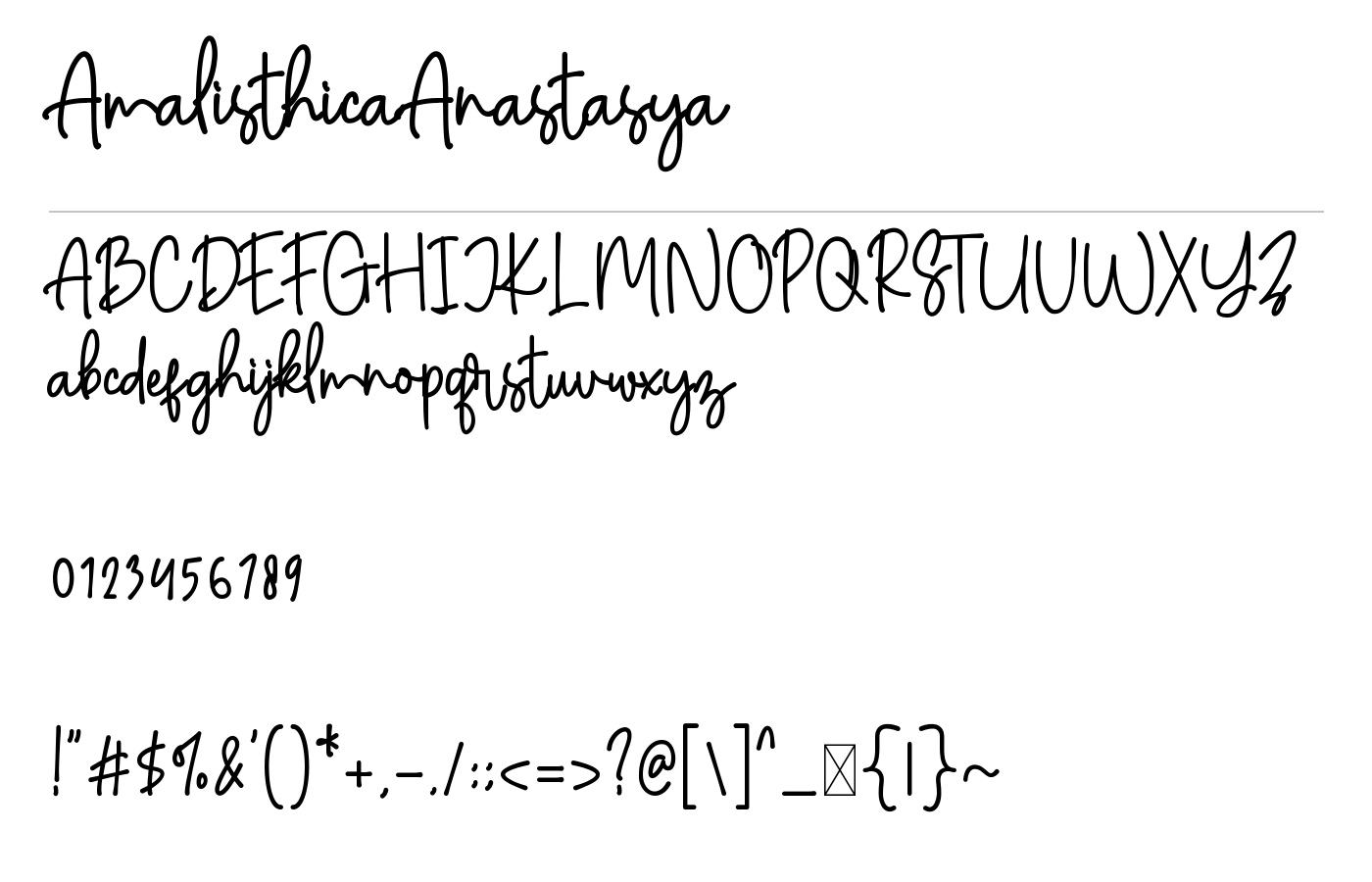
AmalisthicaAnastasya is a playful and casual handwritten script font with a friendly, modern vibe. Its light to regular weight and slightly condensed letterforms create an approachable, natural flow that works well for personal branding, informal invitations, and creative projects. This font adds a warm, handwritten touch perfect for designs seeking an authentic, personable feel.
AmalisthicaAnastasya Font
About AmalisthicaAnastasya Font
| Font family | AmalisthicaAnastasya Font |